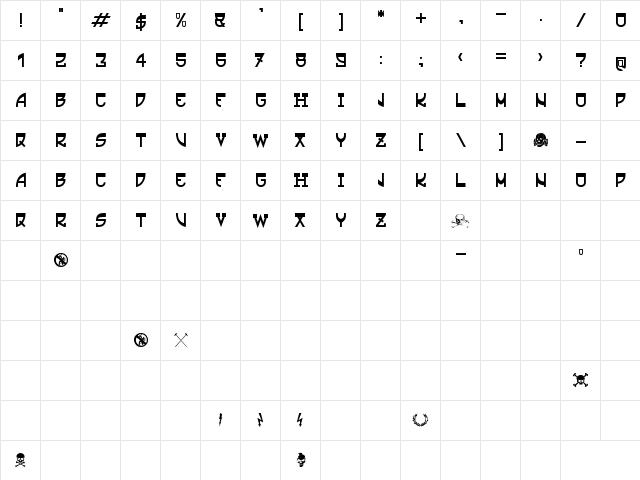
Ultras Liberi Bold
Design Context for Ultras Liberi Typeface
Ultras Liberi is a composed and adaptable typeface that performs quietly and consistently across a wide range of design contexts. Its bold stroke weight gives it real presence on the page.